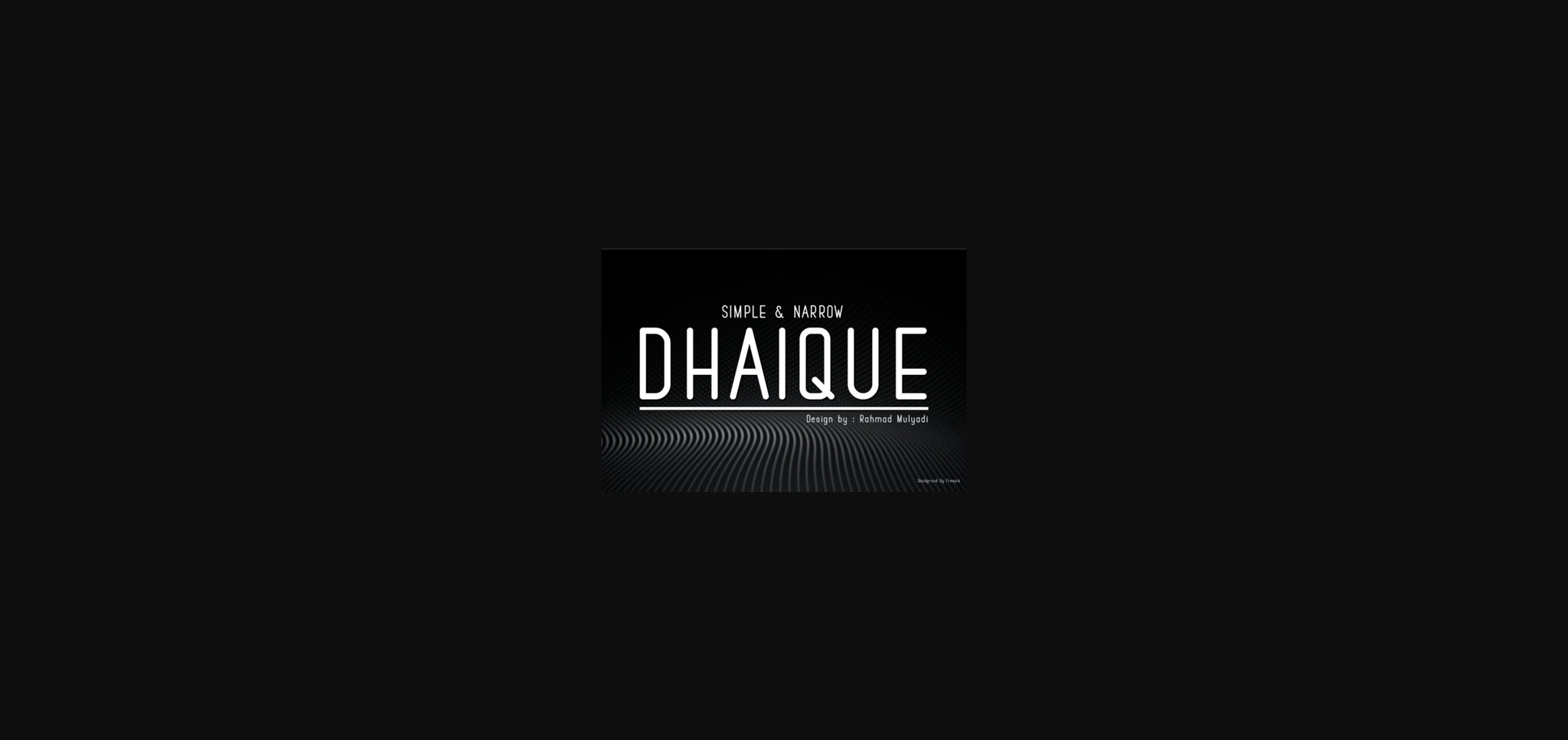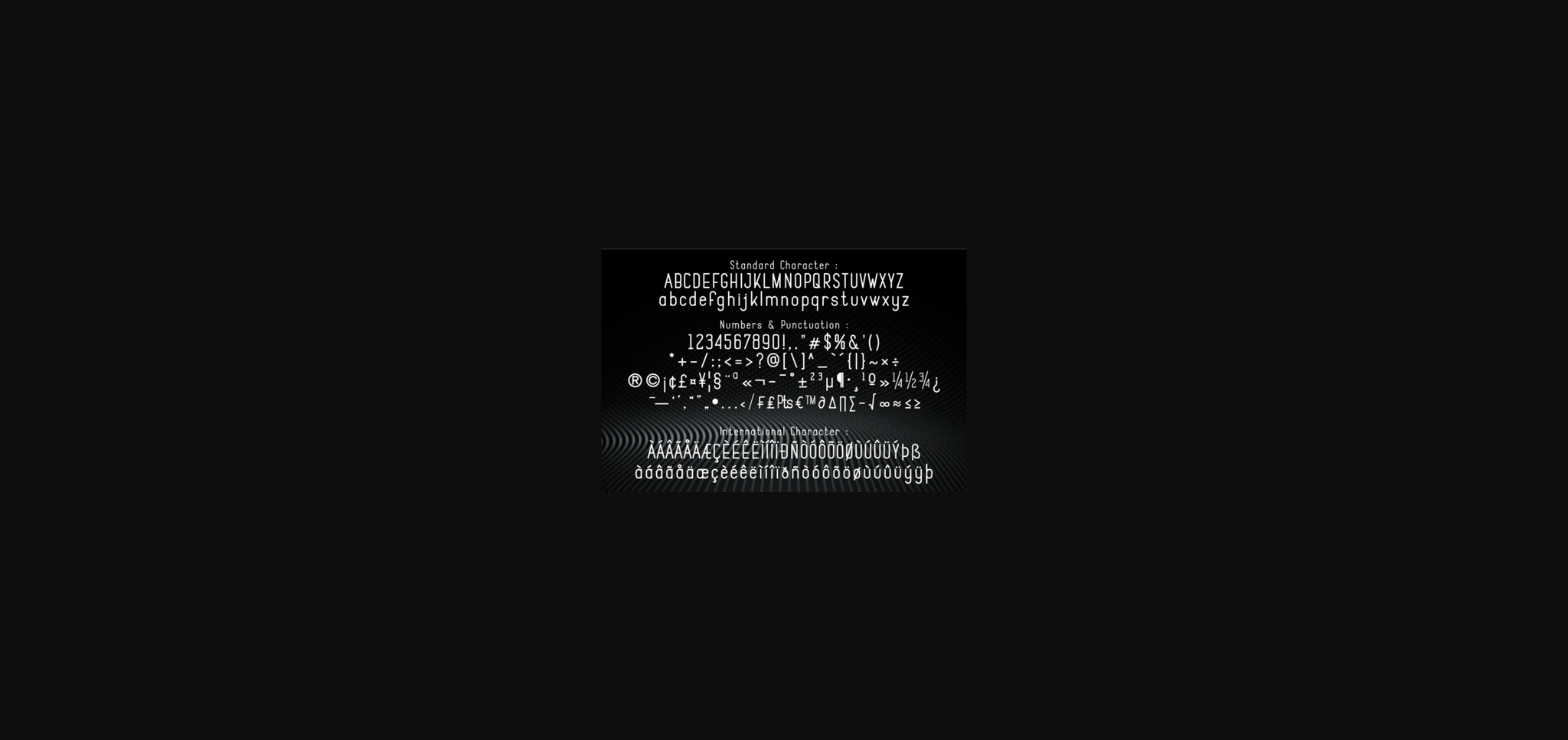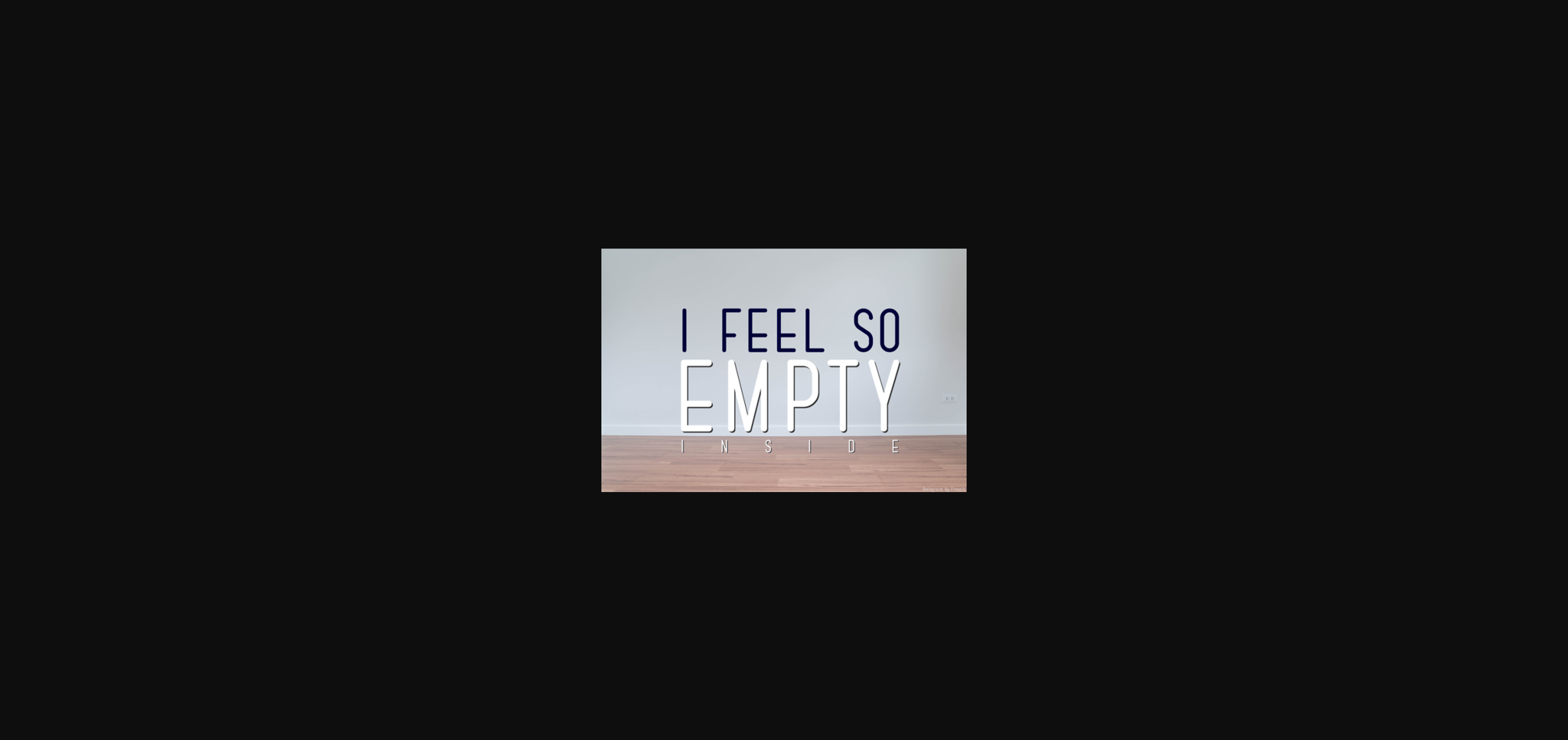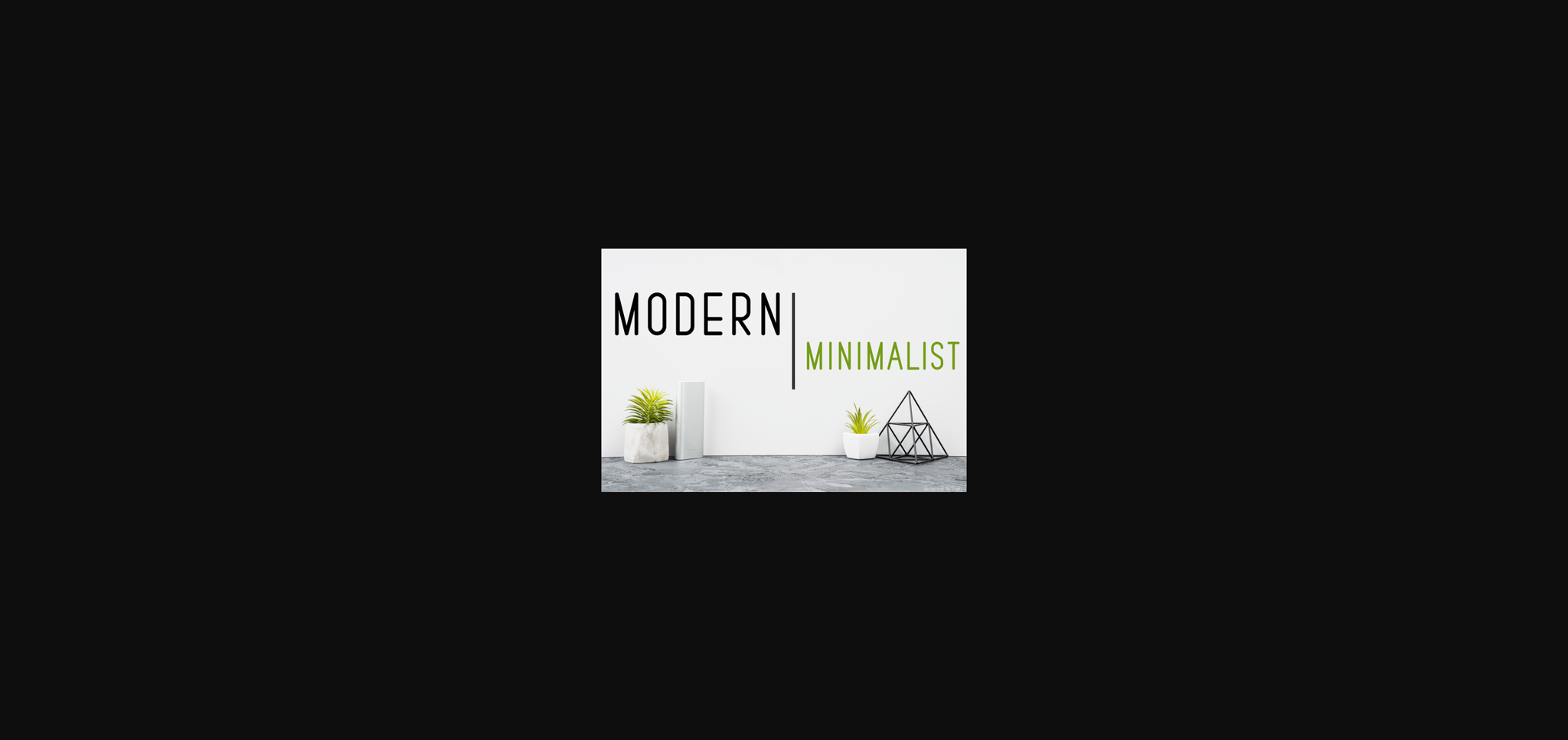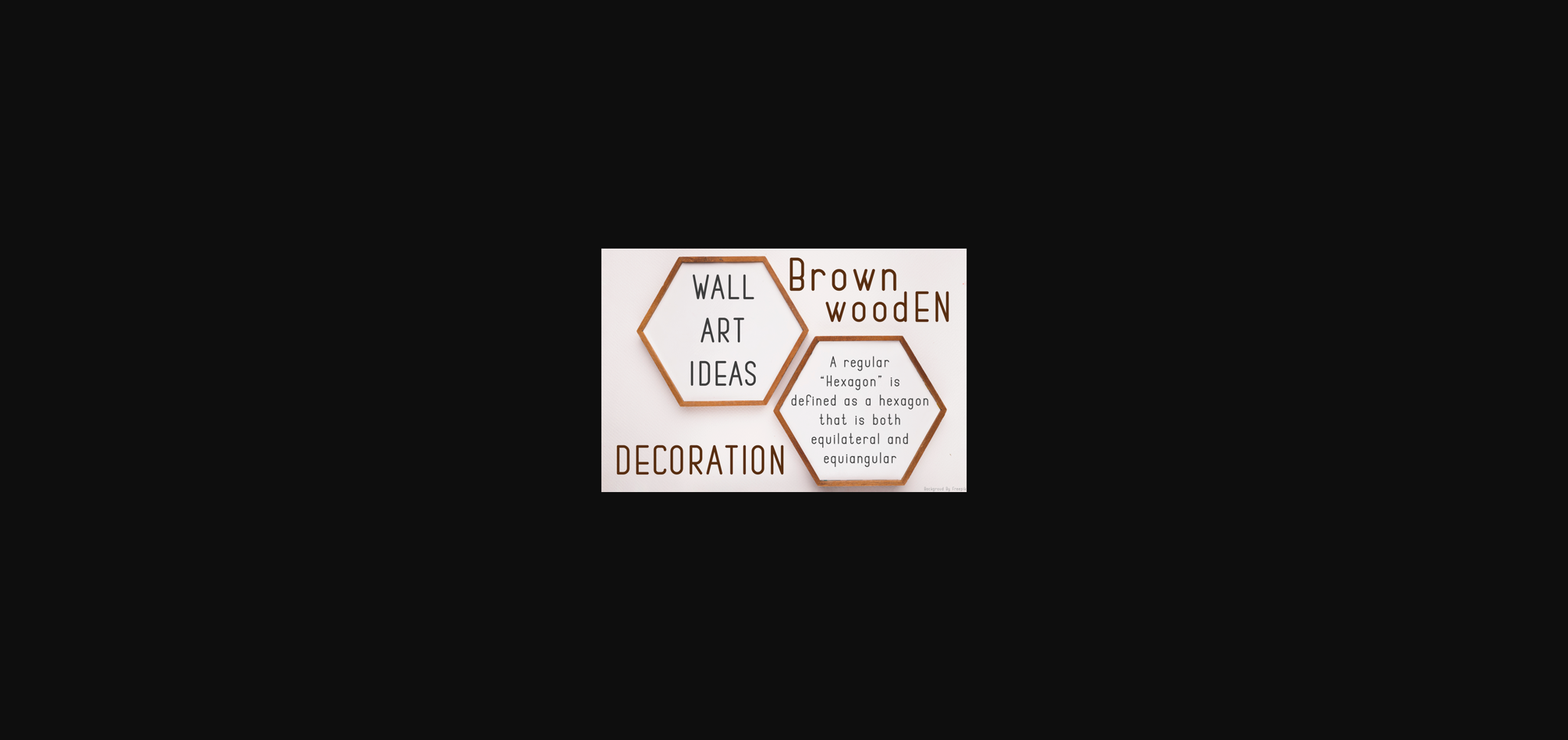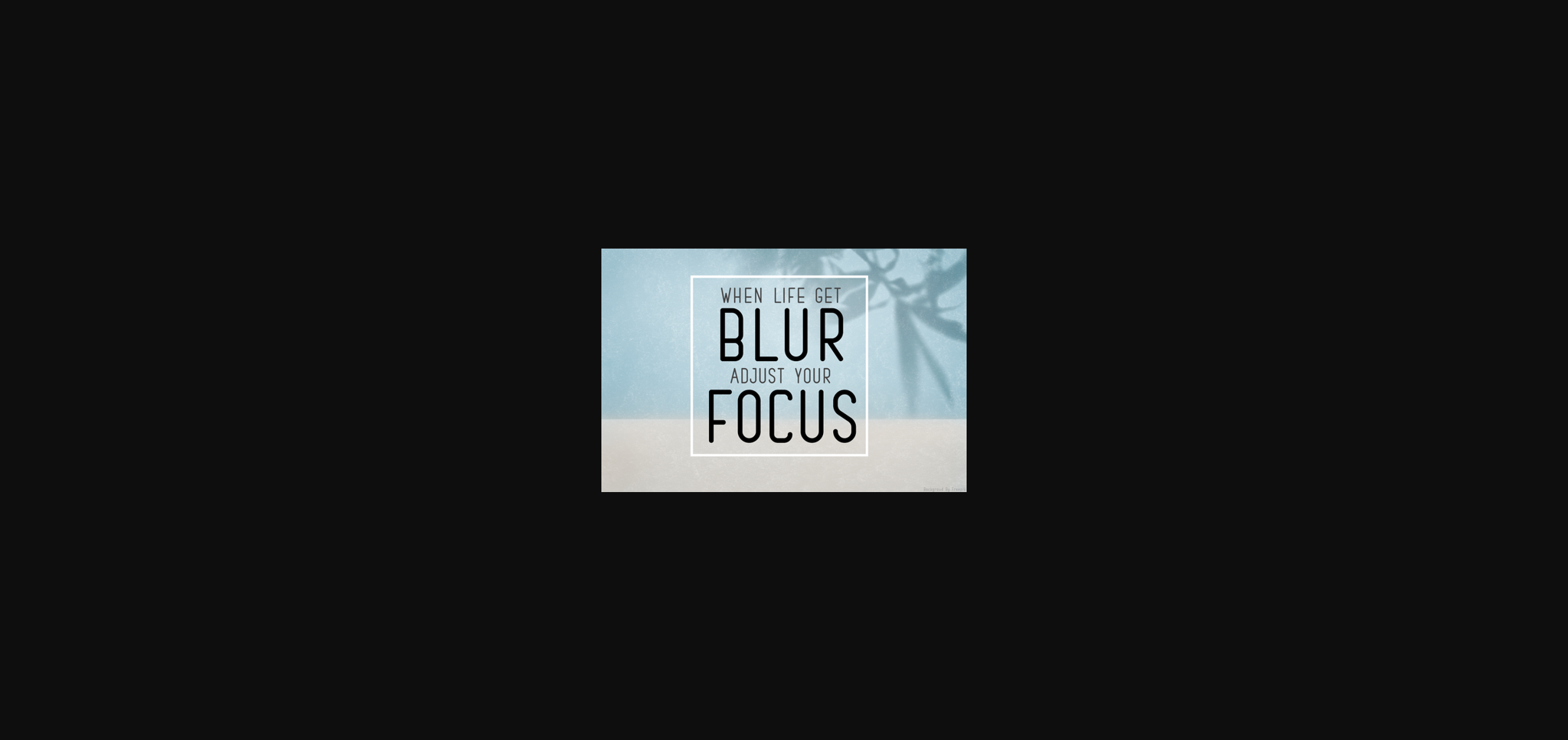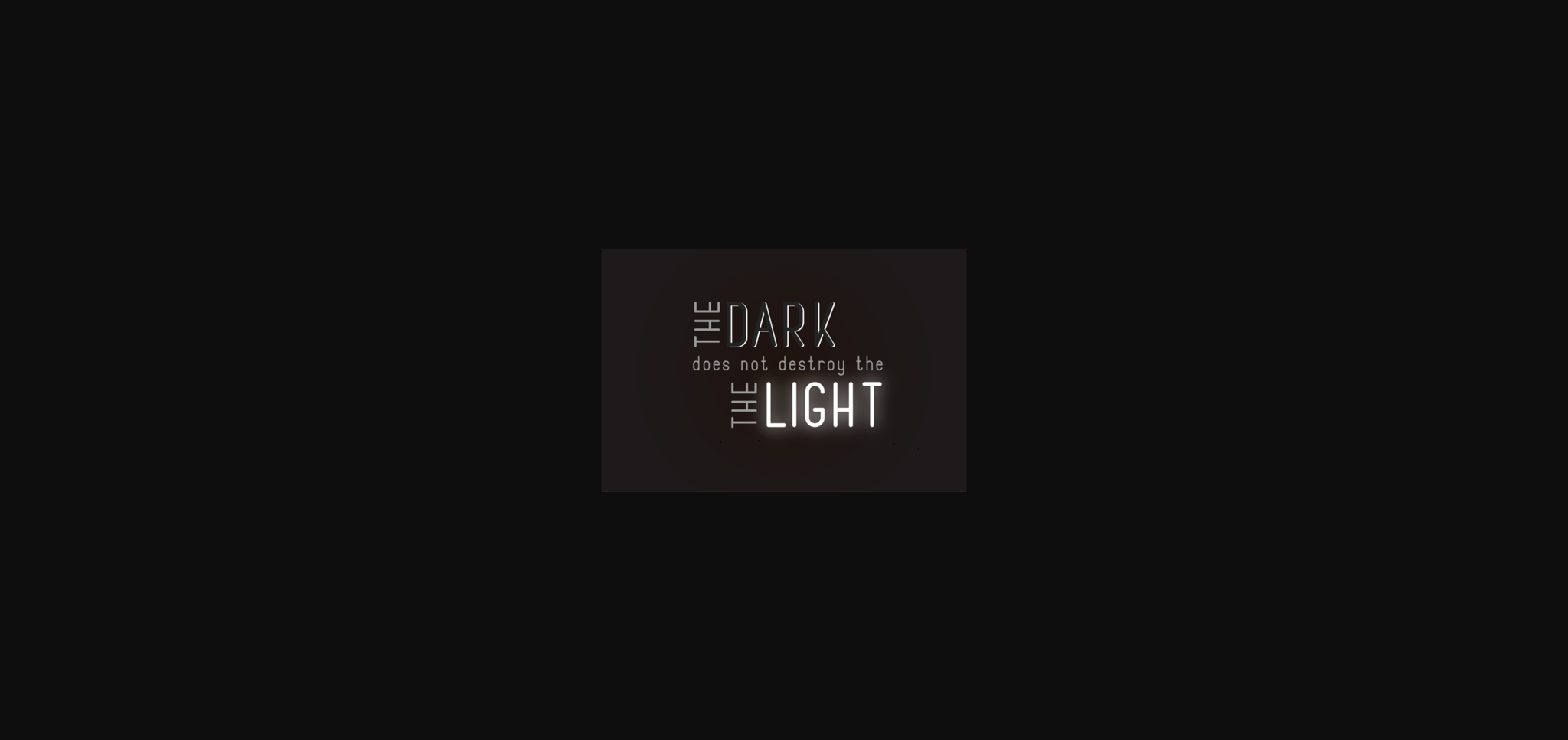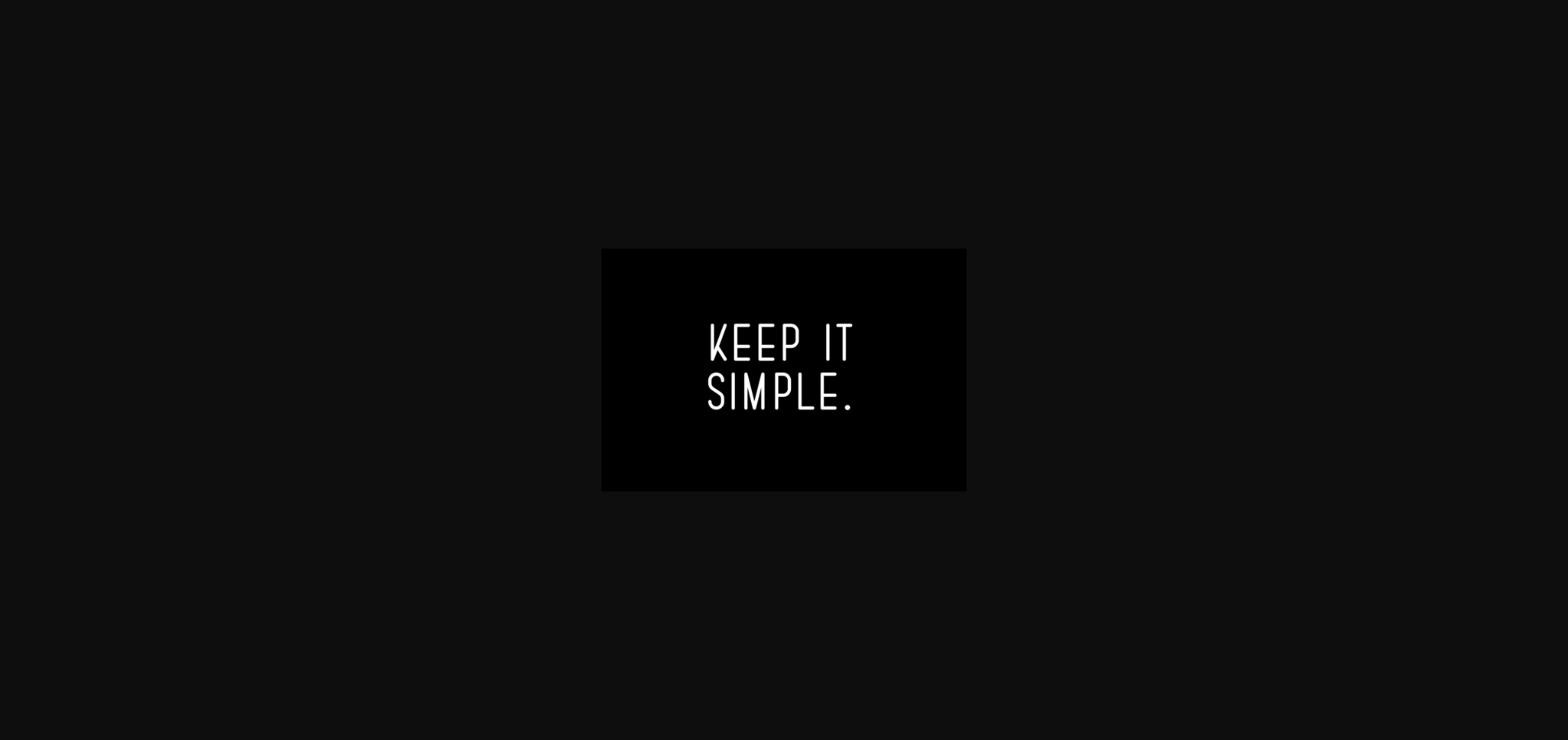
Dhaique Font
About Dhaique Font
Dhaique is a simple and narrow lettered sans serif font. It is suitable for any branding, product packaging, invitation, quote, t-shirt, label, poster, logo that you wish to develop.